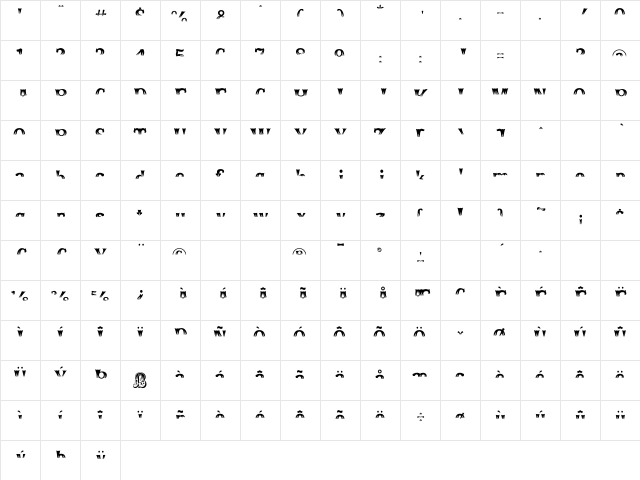
Rodeo Clown Half Fill Regular
Design Context for Rodeo Clown Half Fill Typeface
Rodeo Clown Half Fill is a composed and adaptable typeface that performs quietly and consistently across a wide range of design contexts.